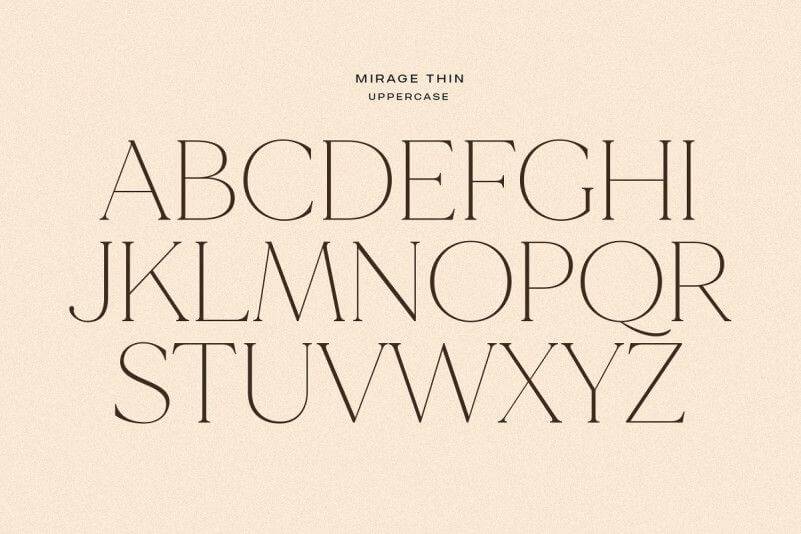
MADE Mirage Serif Font Family
Hello there, gentlemen. MADE Mirage Font is now available. Made Type created it and shared it. With this Font, you may create a beautiful, minimalist, and modern design. MADE Mirage is a serif font family that is both modern and attractive. It is a stylish and contemporary serif font family. This typeface works nicely with current san serifs, script, and handwritten fonts, or it can be used as a header or editorial Font on its own!
Mirage features uppercase and lowercase letters, multilingual characters, digits, punctuation marks, and symbols in five weights: Mirage thin, regular, medium, bold, and black. This typeface may be used to create a number of effects by combining different styles, and because of its versatility, it can be used for branding and packaging designs for everything from high-end products to simple and everyday things. Windows, Apple/Mac, Linux, Cricut, Silhouette, and other cutting machines collaborate with the Font.
MADE Mirage is suitable for a wide range of projects, including fashion, magazines, logos, branding, photography, invites, wedding invitations, quotations, blog headers, posters, commercials, postcards, books, and websites. This typeface is also suitable for stationery, flyers, greeting cards, menus, online articles and blogs, and so on.
| Name | MADE Mirage Serif Font Family |
| Style | Serif |
| Designer | Made Type |